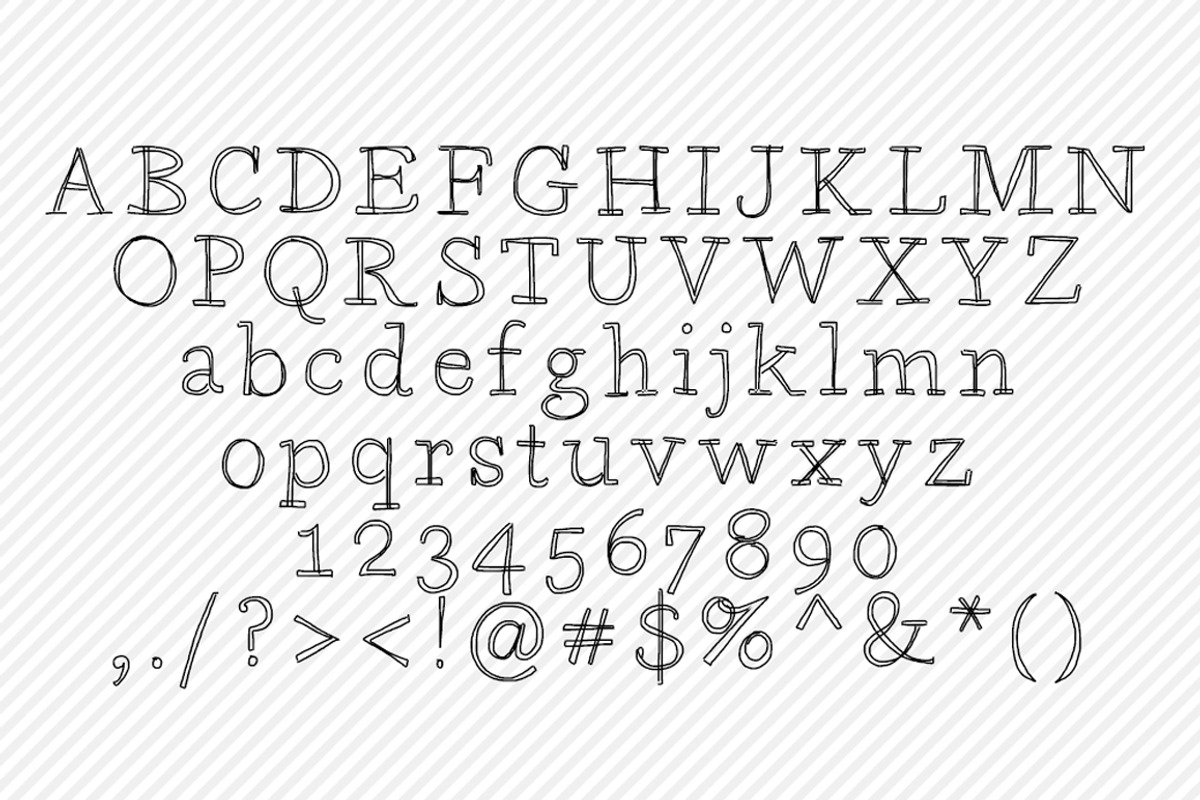
Emily Hand Drawn Font
Emily Hand Drawn Font by Polka Dot Pixels is a font selected for branding, posters, packaging, typography.
- upper and lowercase letters, numbers and punctuation Show More
Emily Hand Drawn Font by Polka Dot Pixels fits naturally into Branding, posters, packaging, typography.